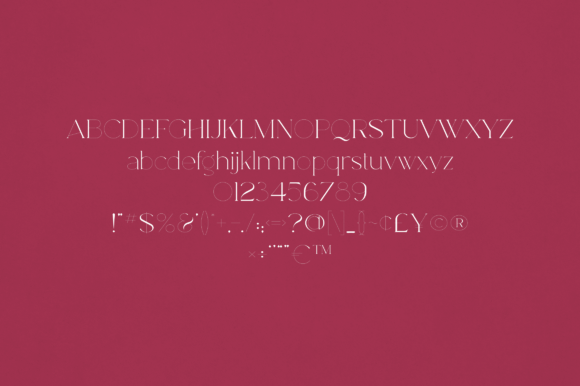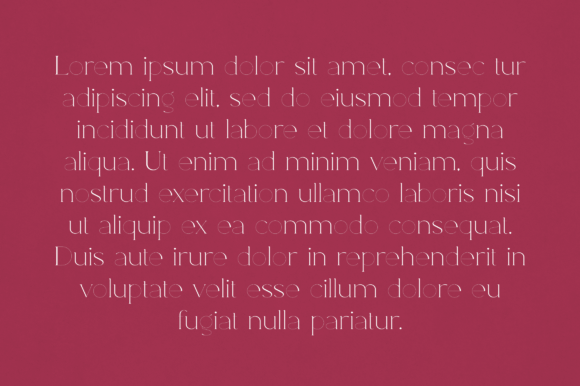
Diana Font: Elevate Your Typography with Elegance and Versatility
Are you tired of using the same old fonts for your design projects? Look no further than Diana Font, a stunning and versatile typeface that will take your typography to the next level. With its elegant and refined aesthetic, Diana is perfect for designers and crafters looking to add a touch of sophistication to their work.
Diana Font is designed to be used across a wide range of applications, from branding and logo design to product packaging, magazine headers, and more. Its unique and stylish appearance makes it an excellent choice for any project that requires a touch of elegance and refinement. Whether you’re working on a luxury brand, a home-ware design, or simply want to add a stylish text overlay to a background image, Diana Font is the perfect choice.
What Makes Diana Font So Special?
So, what sets Diana Font apart from other typefaces on the market? Here are just a few reasons why designers and crafters are falling in love with this beautiful font:
- Elegant and Refined Aesthetic: Diana Font boasts a sophisticated and elegant design that’s perfect for high-end branding, luxury packaging, and refined typography.
- Versatile and Flexible: With its wide range of applications, Diana Font can be used across various design projects, from logos and branding to magazine headers and product packaging.
- Unique and Stylish: Diana Font’s distinctive appearance ensures that your typography stands out from the crowd, adding a touch of personality and style to your designs.
Applications for Diana Font
Diana Font is suitable for a wide range of design projects, including:
- Branding and Logo Design: Create a lasting impression with Diana Font’s elegant and refined aesthetic, perfect for luxury brands and high-end businesses.
- Product Packaging: Add a touch of sophistication to your product packaging with Diana Font, ideal for home-ware designs, cosmetics, and more.
- Magazine Headers: Elevate your magazine or editorial design with Diana Font’s stylish and refined appearance.
- Text Overlays: Use Diana Font as a stylish text overlay for background images, adding a touch of elegance and refinement to your designs.
Why Choose Diana Font?
With so many fonts on the market, why choose Diana Font for your design projects? Here are just a few reasons why designers and crafters are choosing Diana:
- High-Quality Design: Diana Font is designed to the highest standards, ensuring a clean and refined appearance that’s perfect for professional design projects.
- Unique and Exclusive: With its distinctive appearance, Diana Font is a unique and exclusive addition to any design project, ensuring your typography stands out from the crowd.
In conclusion, Diana Font is an elegant and versatile typeface that’s perfect for designers and crafters looking to elevate their typography. With its refined aesthetic, wide range of applications, and high-quality design, Diana Font is an excellent choice for any project that requires a touch of sophistication and elegance. Whether you’re working on a luxury brand, product packaging, or simply want to add a stylish text overlay to a background image, Diana Font is the perfect choice.